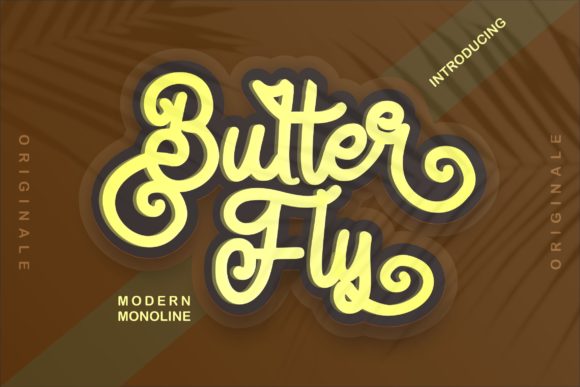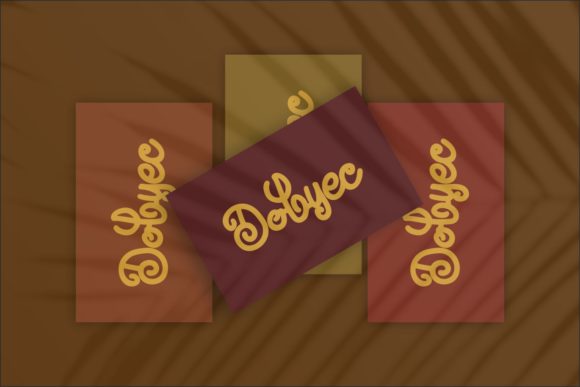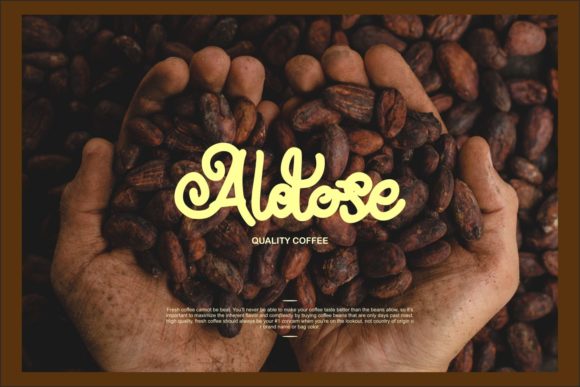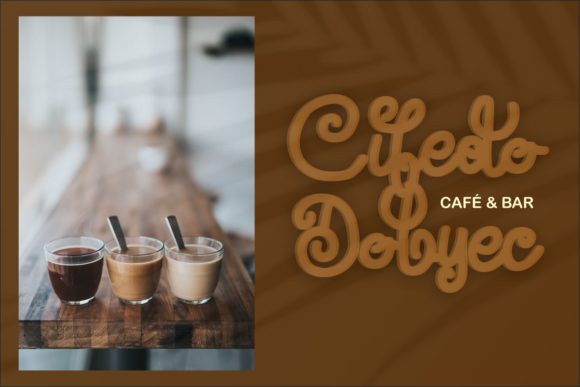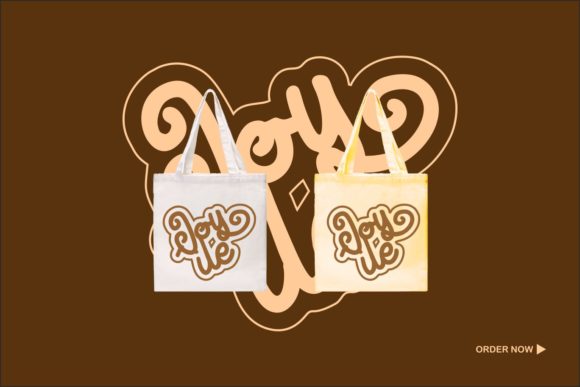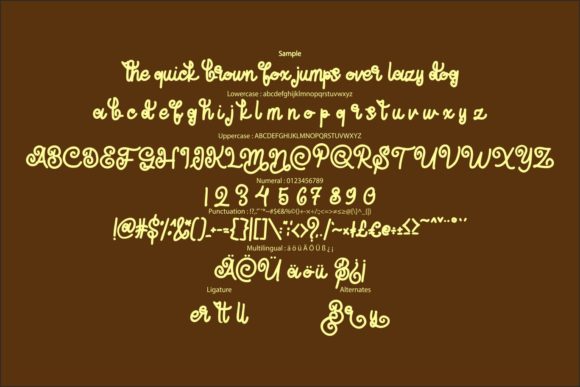
Butter Fly Font
About Butter Fly Font
Butter Fly is a lovely and incredibly unique handwritten font. Fall in love with its distinct and versatile style and use it to create spectacular designs!